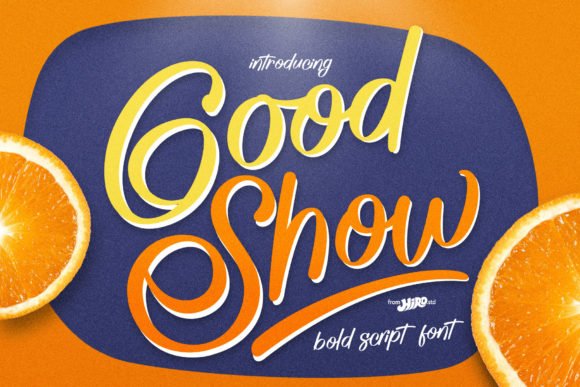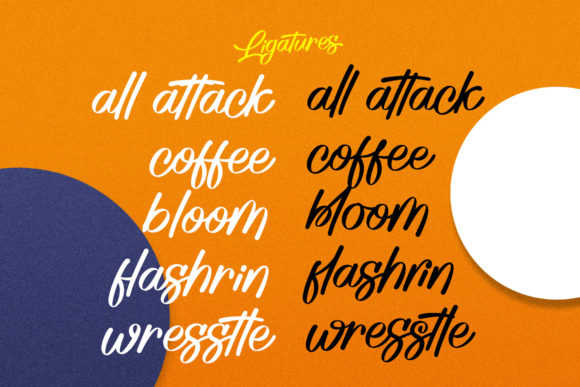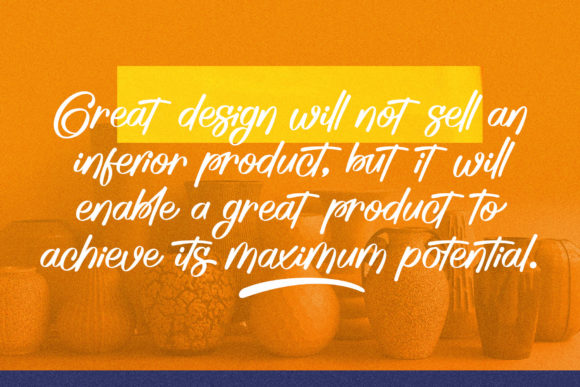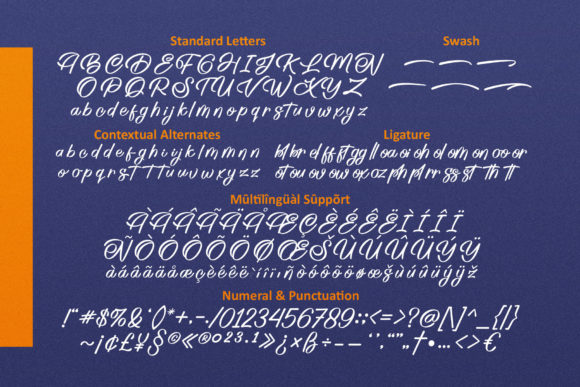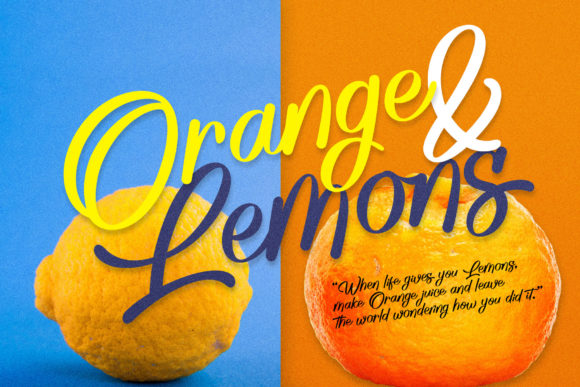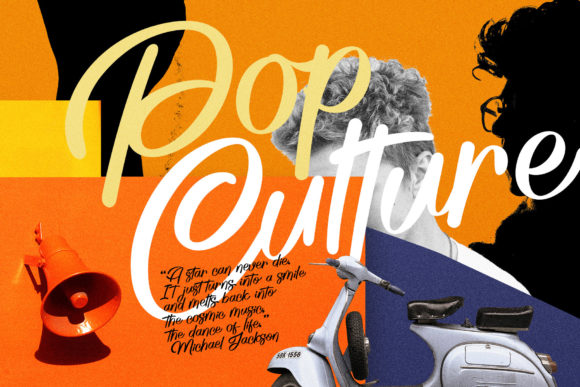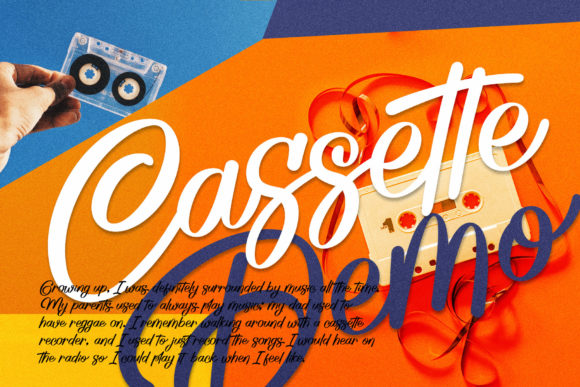
The Perfect Harmony in Typography: Good Show Font
Have you ever sat at your desk, staring at a blank page, trying to conjure up the perfect design? The words won’t flow, the ideas won’t come, and you’re left with a blank slate. But then, it hits you – the perfect font, the perfect combination of style and elegance that brings your design to life. For many designers, this moment of inspiration is the key to unlocking their creativity, and for some, it’s all about the Good Show Font.
Good Show Font is more than just a font – it’s a harmony of delicate characters that work together in perfect sync. With its PUA encoding, designers can access all the glyphs and swashes with ease, making it a valuable tool for any project. Whether you’re working on a magazine layout, a poster, or a website, the Good Show Font is sure to bring a touch of sophistication and elegance to your design.
Good Show Font Key Features
- Unique Characteristics: Distinctive, elegant script with a touch of vintage flair
- Kerning and Ligatures: Includes advanced kerning and ligature pairs for professional typography
Good Show Font Review
First off, let me say that I really like the playfulness of Good Show Font. The ✨ quirky feel of the font is perfect for a project that needs a bit of whimsy. The designer has done a great job of creating a font that is both fun and functional.
The font’s weight and style variations offer a lot of flexibility for designers. You can use the light version for body text or the bold version for headings, and everything in between. The font also supports a wide range of languages, which is a definite plus.
One thing that I think could be improved is the font’s legibility at smaller sizes. At font sizes below 12px, the font can become a bit difficult to read, especially for longer blocks of text. Additionally, the font’s aesthetic may not be to everyone’s taste – some people may find it too playful or childish.
Overall, I think Good Show Font is a great choice for designers who want to add a bit of personality to their projects. Just be mindful of the font’s limitations and use it in contexts where its quirks will shine.
Designers’ Notes
- ✨ Great for projects that need a playful feel
- ✨ Wide range of language support
- ✨ Fun and functional design
- ⚠️ Legibility can be an issue at smaller sizes
- ⚠️ May not be to everyone’s taste
Good Show Font: A Practical Application Guide
Getting the Most Out of Good Show Font
For best results, use Good Show Font in bold or italic styles to add emphasis to your text. You can also combine it with other fonts to create a visually appealing design. Experiment with different font sizes and colors to create a unique look.
Good Show Font is commonly used in titles, headings, and captions. It’s also great for creating attention-grabbing social media posts, presentations, and marketing materials.
What is the recommended font size range for the Good Show Font?
The recommended font size range for the Good Show Font is between 10px and 24px for body text, and 36px to 72px for headings. However, these values can be adjusted based on your specific design requirements and the desired level of legibility.